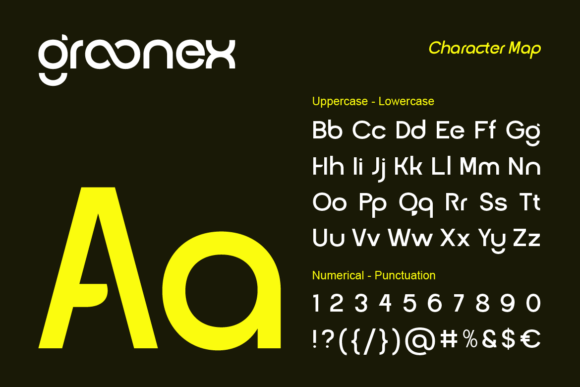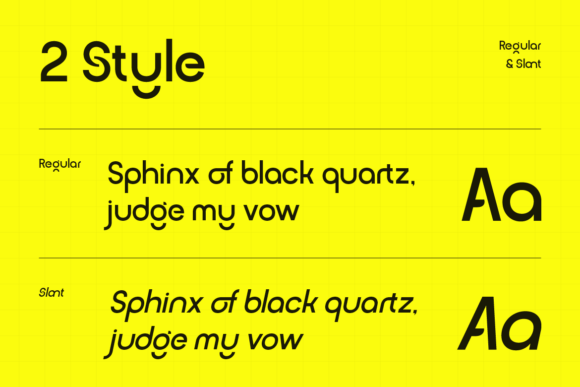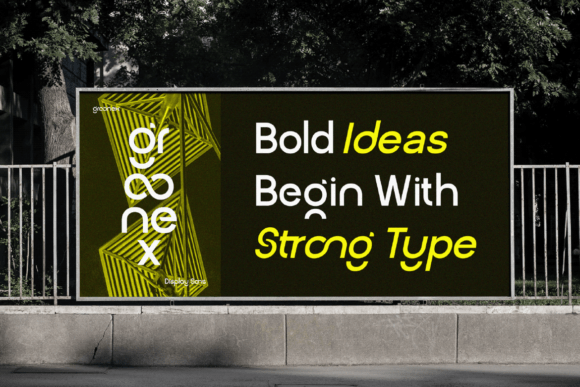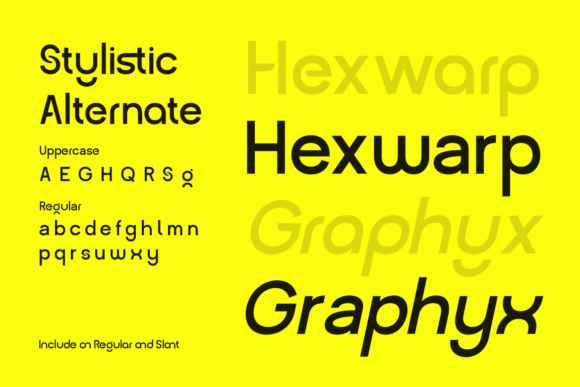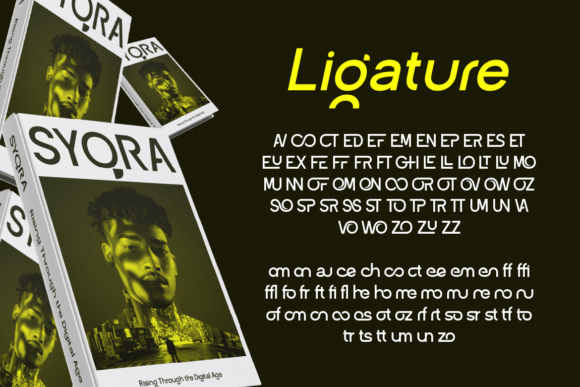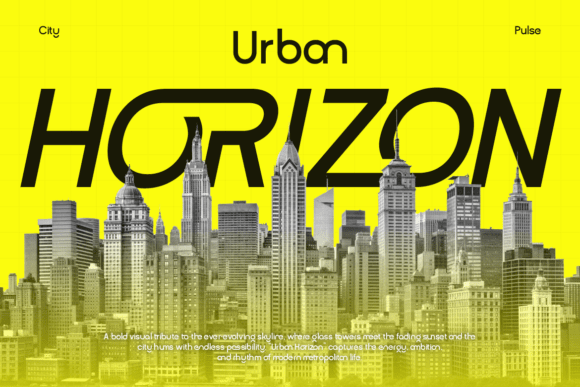
Introduction to Groonex Font
Groonex, a modern display sans built with logo design in mind.
Clean, bold, and stylish, this font is made to give your brand a strong and memorable identity Its unique shapes and smooth flow make it stand out, while still keeping that professional and versatile vibe.
Key Features of Groonex Font